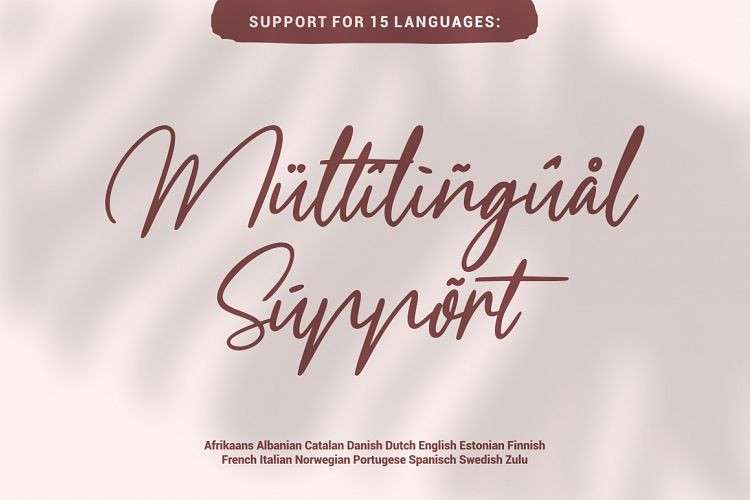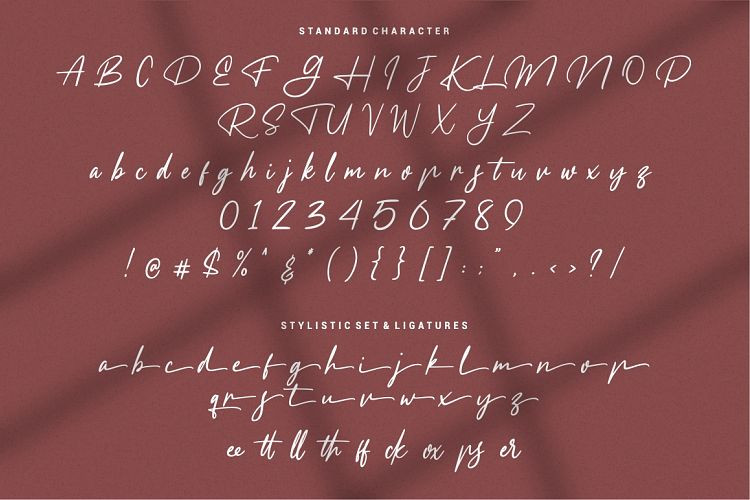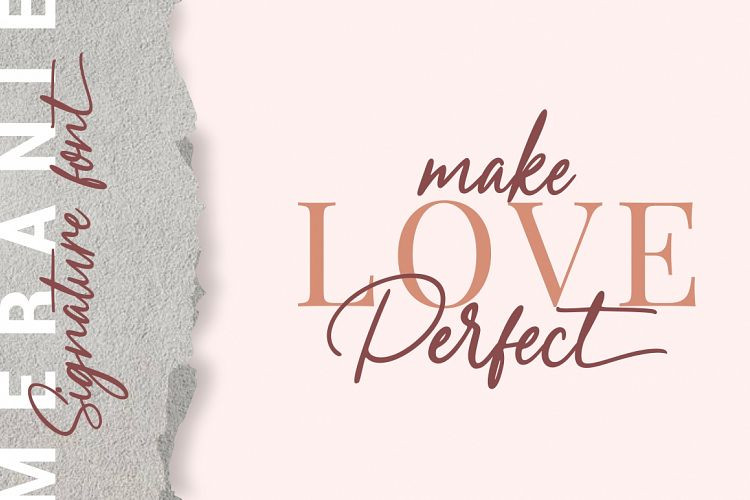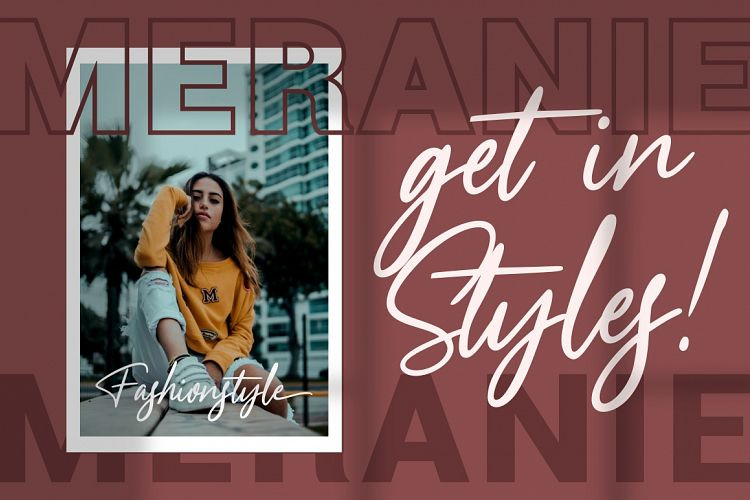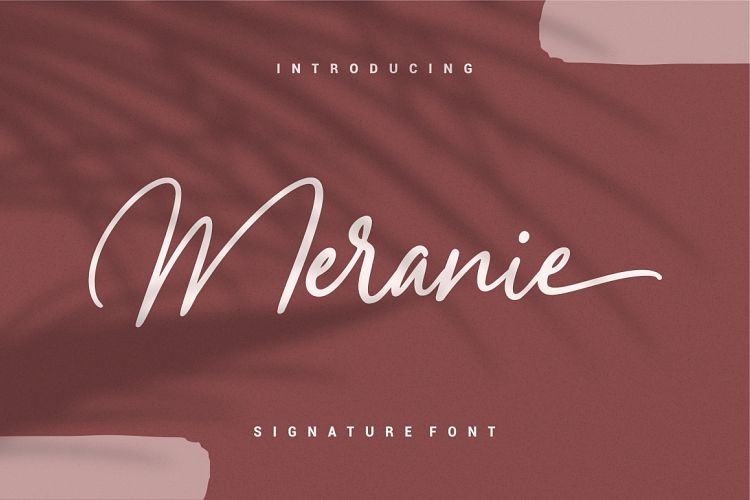
Meranie Signature Font
This is consisting of a fashionable signature-style script make looks elegant, classy and touch of luxury and stylish. It’s designed and shared by Garisman Studio. Introducing Meranie Font. It’s made a naturally modern script with the ending swashes and more than ligatures. With the unique Opentype in it and the ligature will add aesthetic value to your design product. Available in this file are Meranie Swash which you can unite into an amazing design.